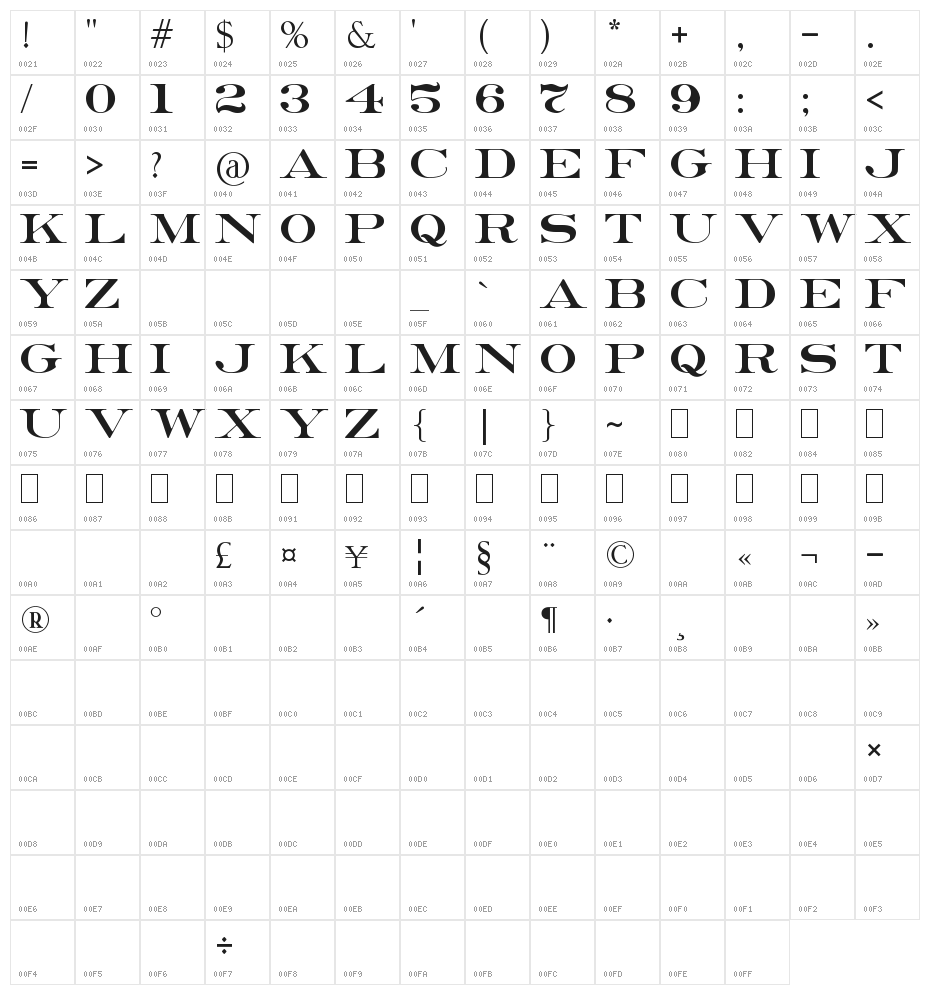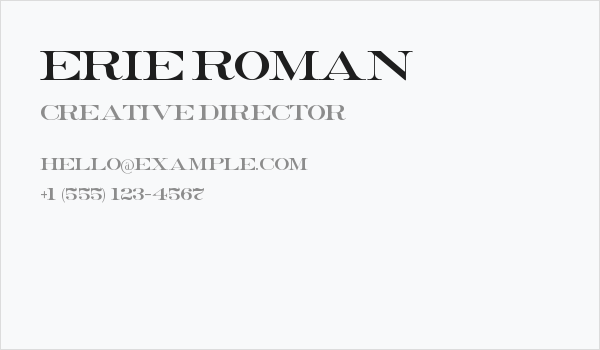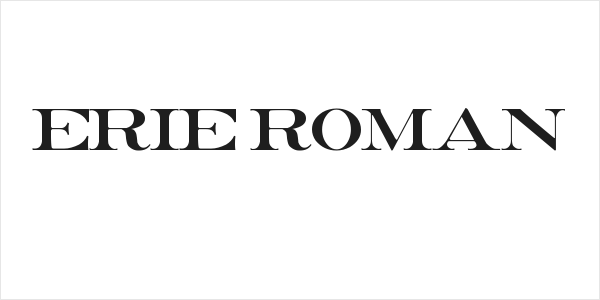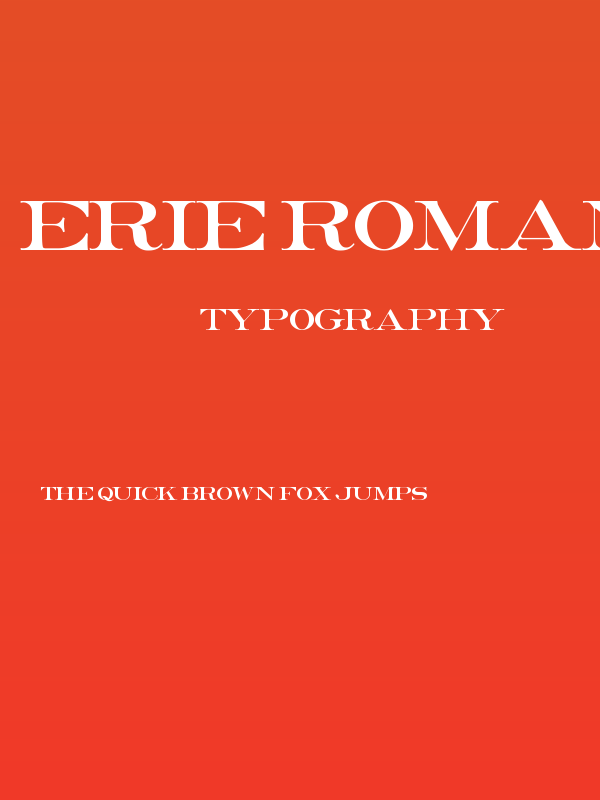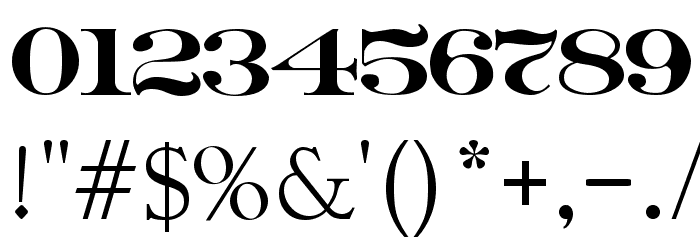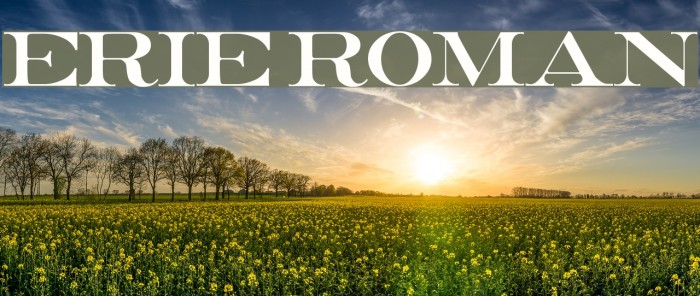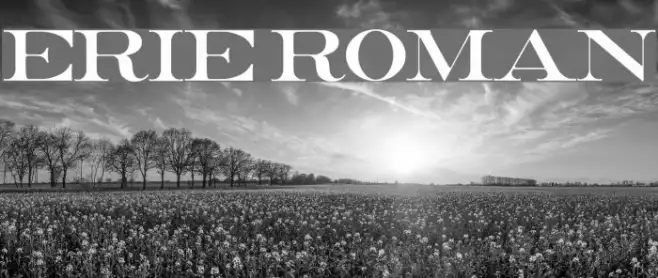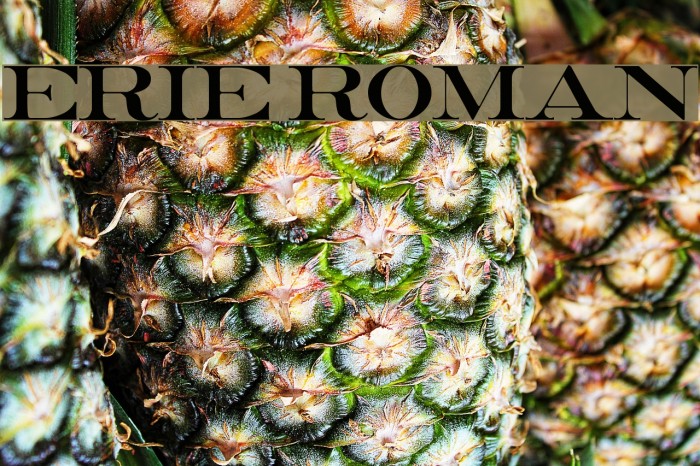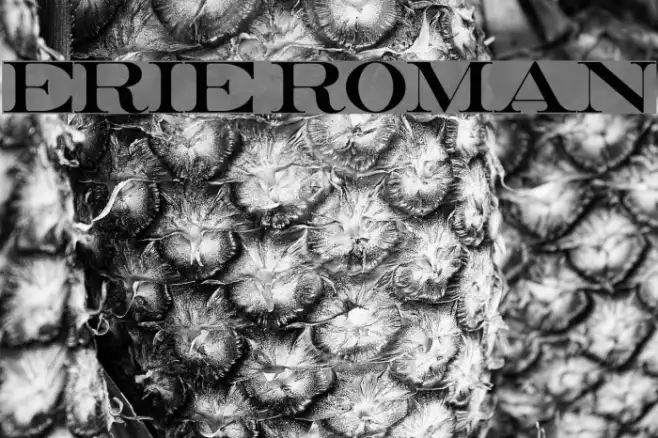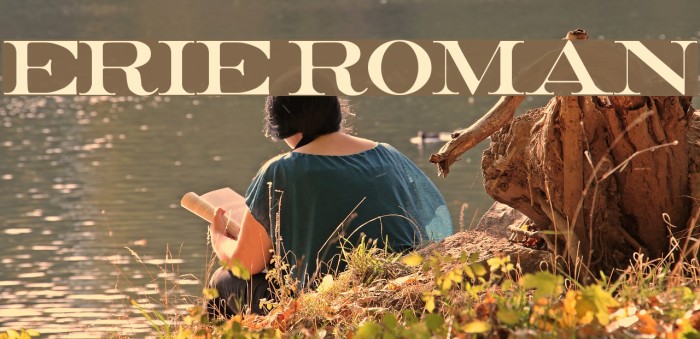
Erie Roman Font
Erie Roman Description
This font features a bold and dramatic serif style with high contrast between thick and thin strokes. The characters have a classic and elegant appearance, with distinctive serifs that add a touch of sophistication. The uppercase letters are particularly striking, with a strong presence that commands attention. The numerals and special characters maintain the same boldness, ensuring consistency across all text elements. The overall design is reminiscent of traditional serif fonts but with a modern twist, making it suitable for a variety of design applications.
| Proposed Projects | Ideal for use in headlines, branding, editorial design, and luxury product packaging. |